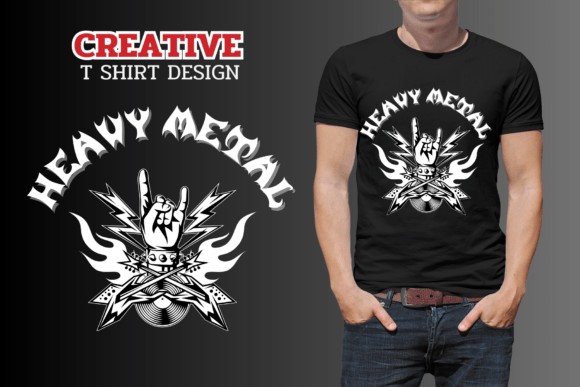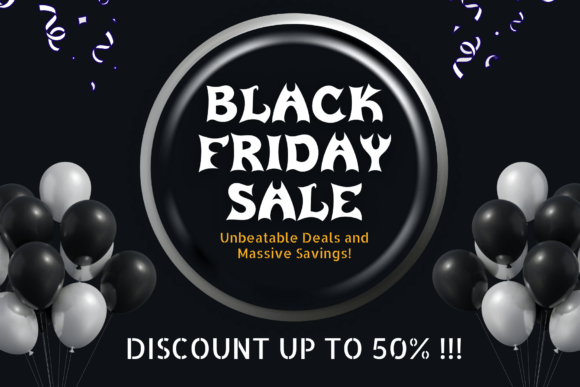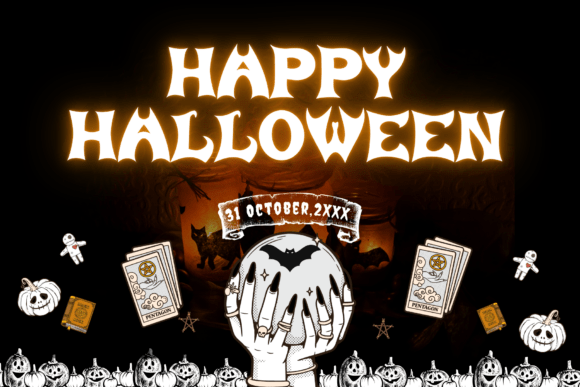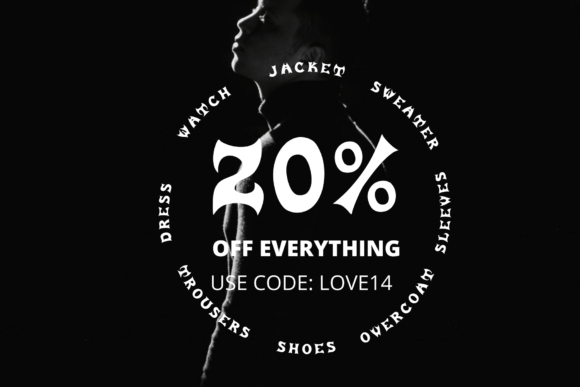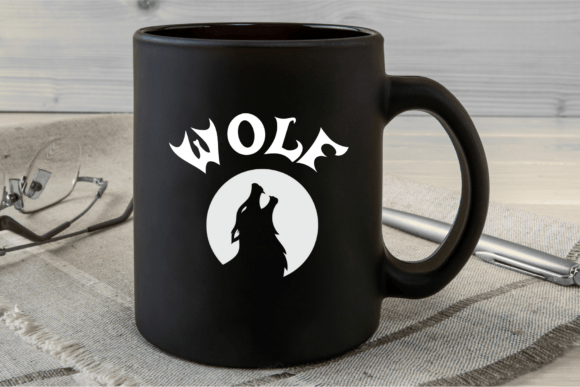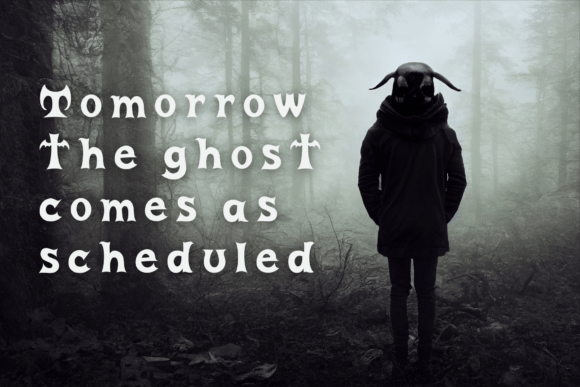
Bat Font: The Ultimate Typeface for Spooky Designs and Halloween Decor
Are you looking for a font that can add a touch of mystery and eeriness to your designs? Look no further than Bat Font, a bold decorative typeface inspired by bats and gothic style. This unique font is perfect for Halloween, spooky party invitations, posters, horror designs, logos, and creative projects.
What is Bat Font?
Bat Font is a decorative typeface that features sharp wings and dramatic shapes, reminiscent of bats and gothic architecture. Its bold and eye-catching design makes it perfect for creating spooky and attention-grabbing typography. The font is designed to bring a mysterious and eerie touch to your designs, making it ideal for seasonal crafts, t-shirts, stickers, and digital designs.
Characteristics of Bat Font
Bat Font has several characteristics that make it stand out from other fonts. Some of its key features include:
- Bold and decorative design: Bat Font features a bold and decorative design that is perfect for creating eye-catching typography.
- Sharp wings and dramatic shapes: The font features sharp wings and dramatic shapes that are inspired by bats and gothic style.
- Mysterious and eerie touch: Bat Font brings a mysterious and eerie touch to your designs, making it perfect for Halloween and spooky-themed projects.
- Versatile: The font is versatile and can be used for a variety of projects, including Halloween party invitations, posters, horror designs, logos, and creative projects.
Uses of Bat Font
Bat Font is a versatile font that can be used for a variety of projects. Some of the most popular uses of the font include:
- Halloween party invitations: Bat Font is perfect for creating spooky and eye-catching Halloween party invitations.
- Posters and flyers: The font can be used to create attention-grabbing posters and flyers for horror movies, haunted houses, and other spooky events.
- Horror designs: Bat Font is ideal for creating horror designs, including logos, t-shirts, and other merchandise.
- Logos and branding: The font can be used to create unique and memorable logos and branding for businesses and organizations.
- Creative projects: Bat Font is perfect for creative projects, including art, craft, and DIY projects.
Benefits of Using Bat Font
There are several benefits to using Bat Font for your designs. Some of the benefits include:
- Unique and eye-catching design: Bat Font features a unique and eye-catching design that is sure to grab attention.
- Versatile: Bat Font is versatile and can be used for a variety of projects.
- High-quality: The font is high-quality and features crisp and clear lines.
Tips for Using Bat Font
Here are a few tips for using Bat Font:
- Use it sparingly: Bat Font is a bold font, so it’s best to use it sparingly to avoid overwhelming your design.
- Pair it with other fonts: Bat Font can be paired with other fonts to create a unique and interesting design.
- Experiment with different colors: The font can be used with a variety of colors to create a unique and eye-catching design.
Bat Font is a unique and versatile font that is perfect for Halloween, spooky party invitations, posters, horror designs, logos, and creative projects. Its bold and decorative design features sharp wings and dramatic shapes that bring a mysterious and eerie touch to your typography. With its ease of use, high-quality design, and versatility, Bat Font is a great choice for designers and crafters looking to add a touch of mystery and eeriness to their designs.